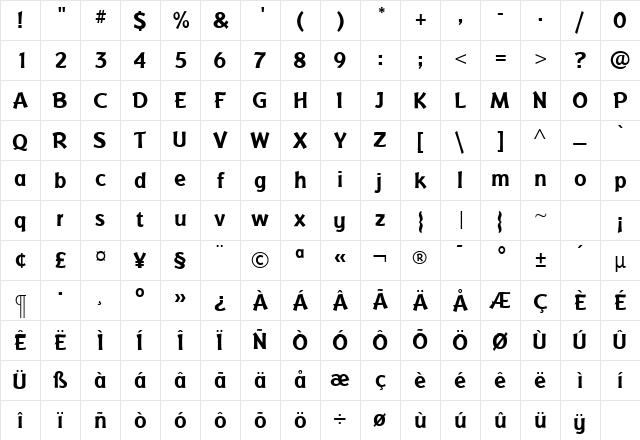
BadgerBold Roman
Style: Roman
Copyright: 1993 Red Rooster Typefounders
Design Context for BadgerBold
BadgerBold is a composed and adaptable typeface that performs quietly and consistently across a wide range of design contexts. Its bold stroke weight gives it real presence on the page.